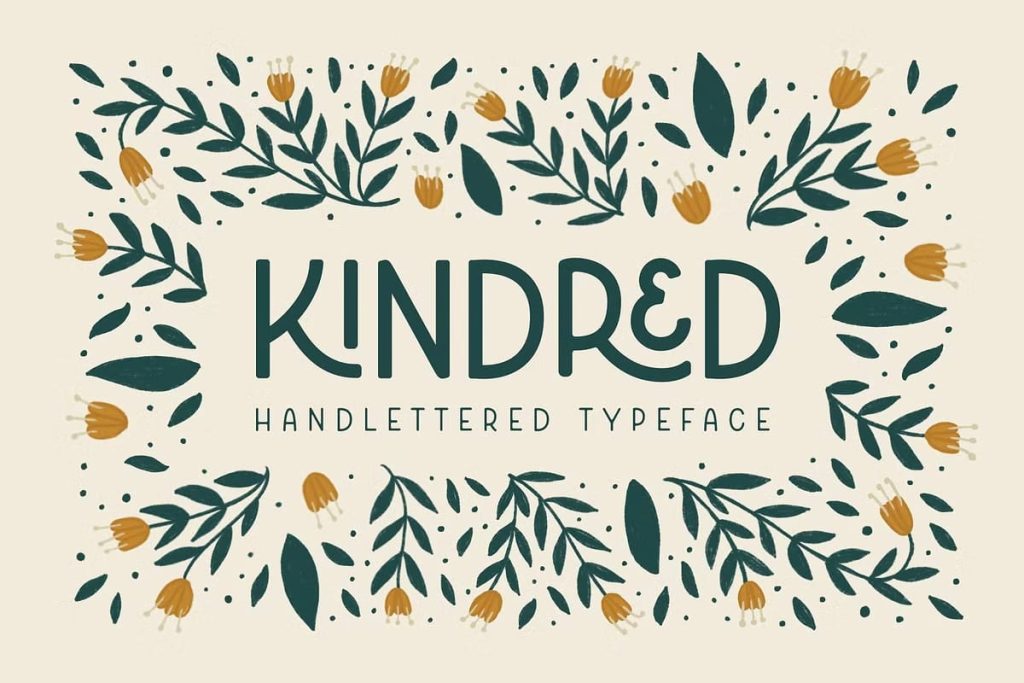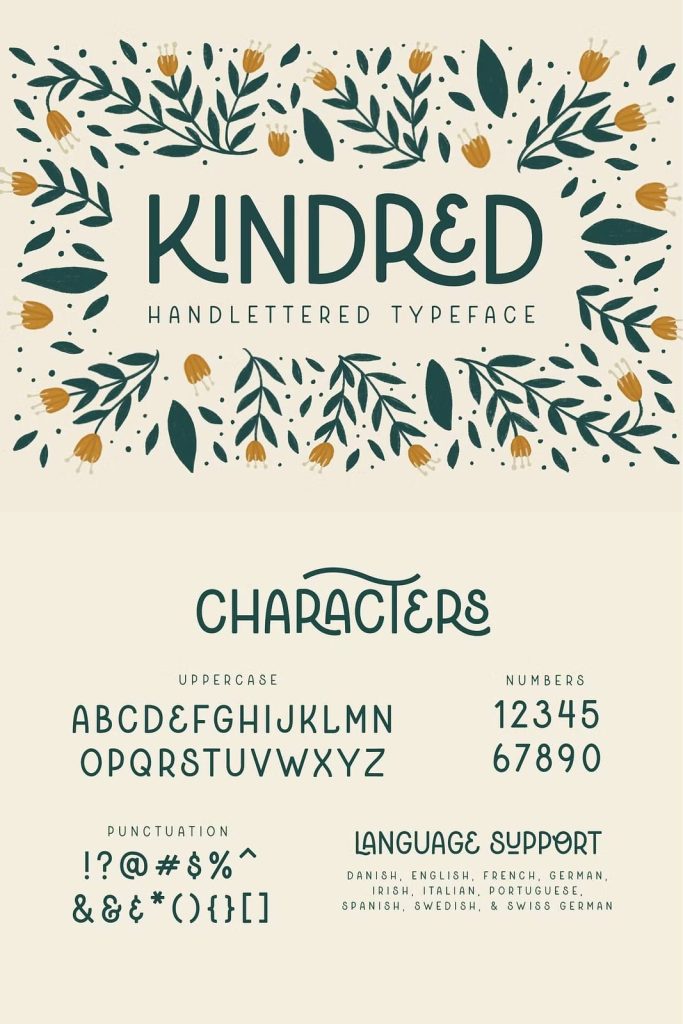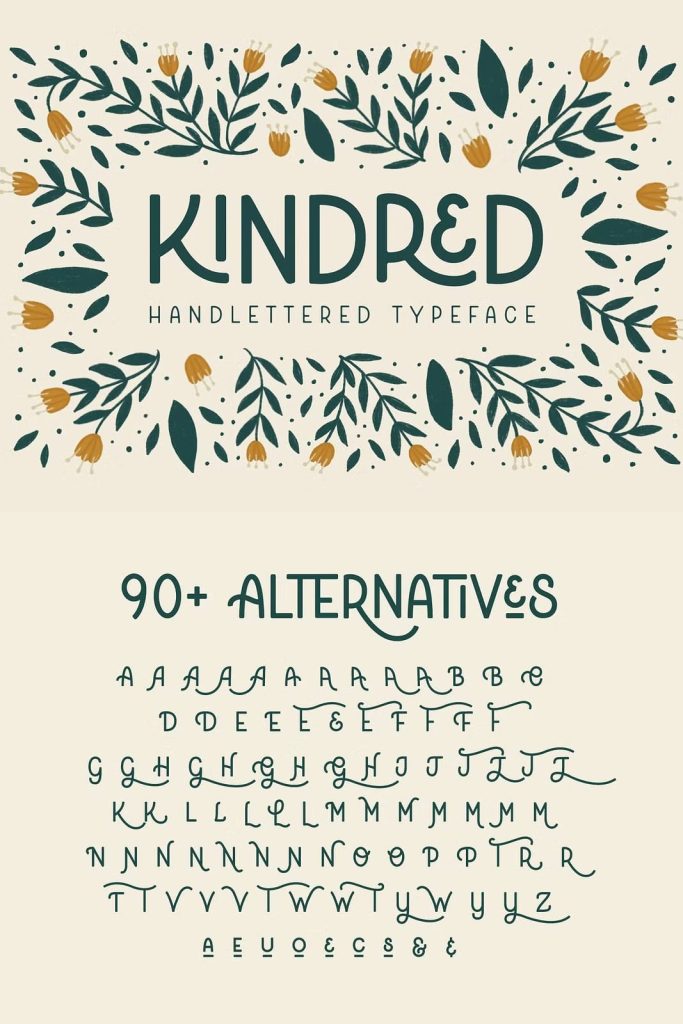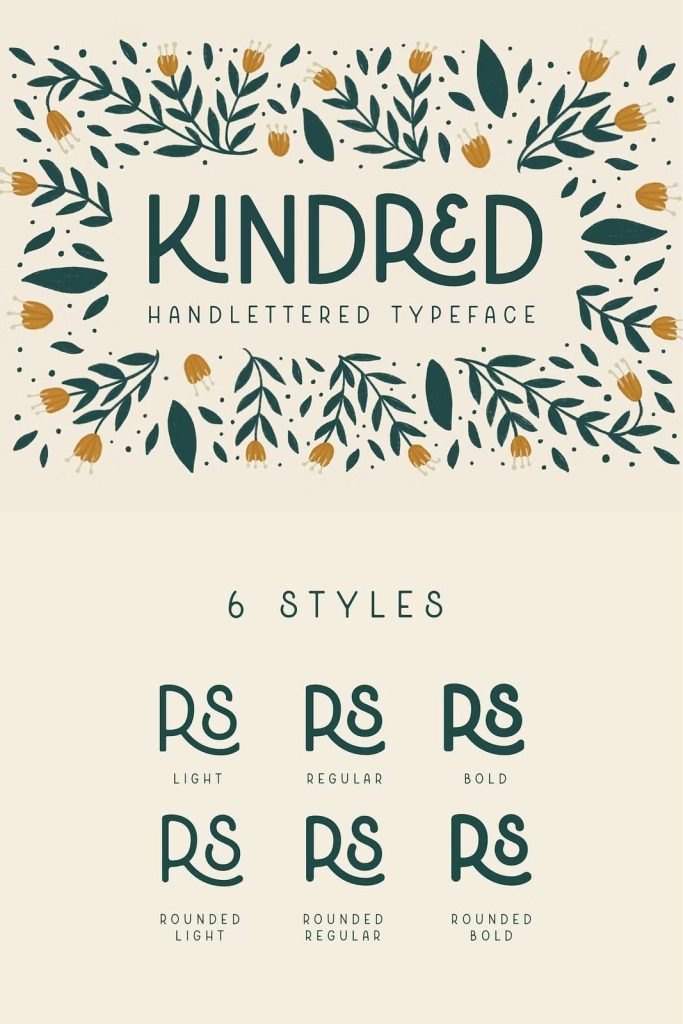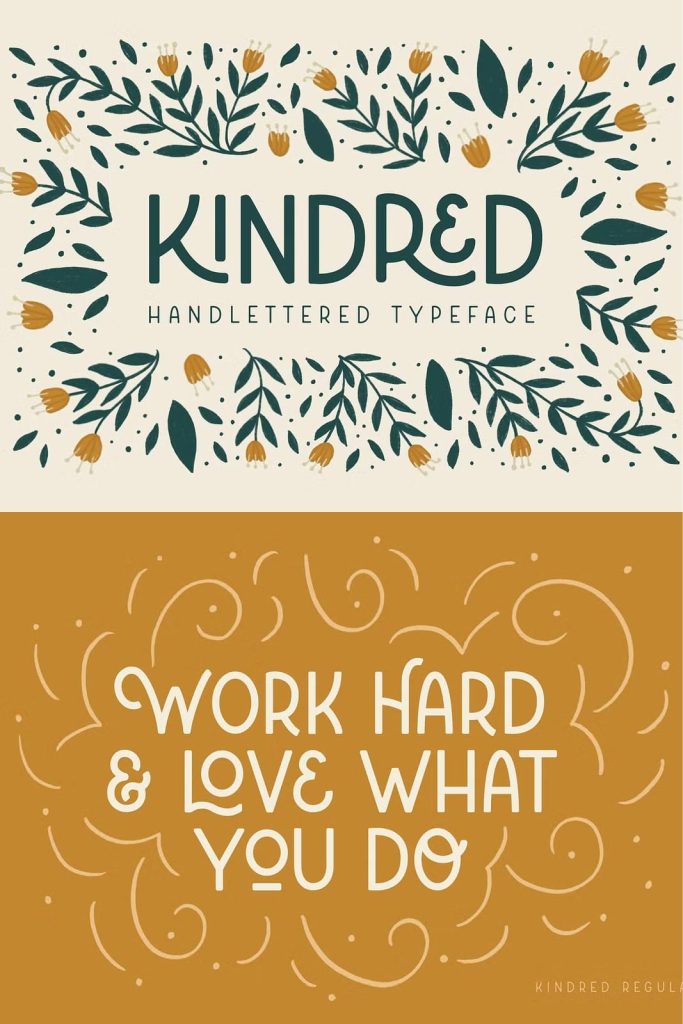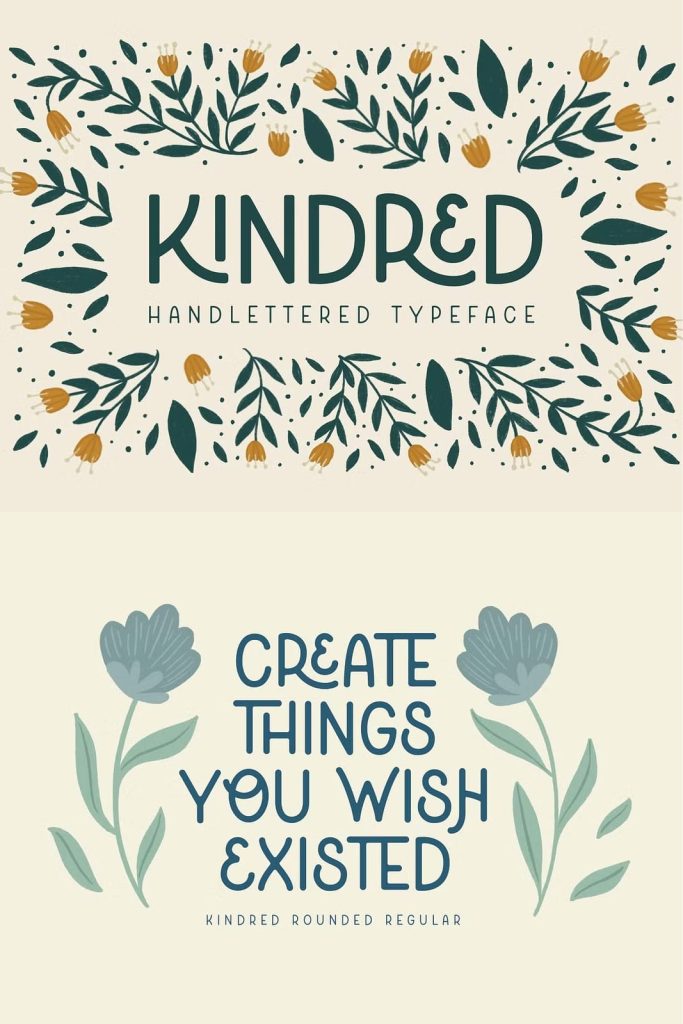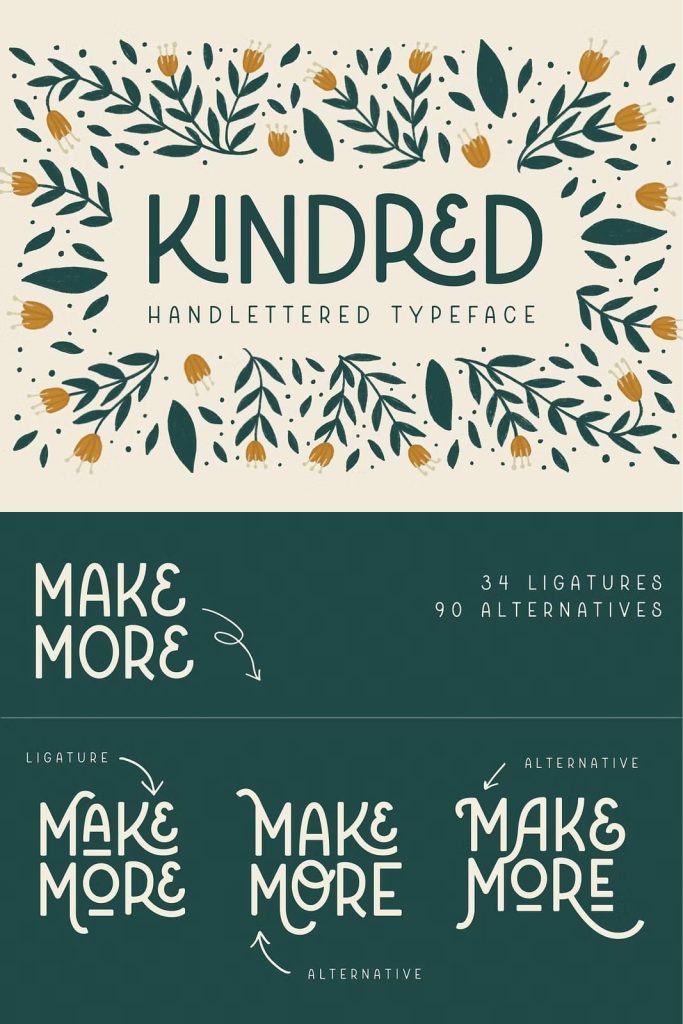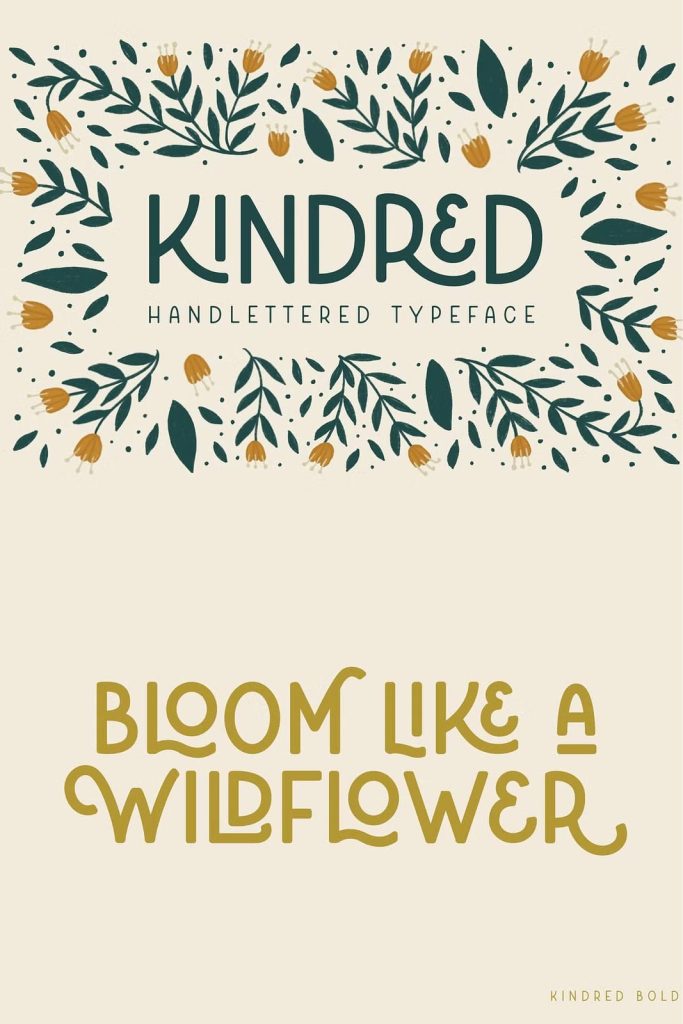
Kindred is an organic and hand-lettered sans typeface. It has a friendly and organic feel that works great for branding, social media, and marketing!
Kindred is inspired by hand lettering art – incorporating many letters that fit into each other and swashes that add a hand-drawn feel. The corners are slightly rounded to give it an organic and friendly feel. With so many alternatives and ligatures, each word can be customized to fit the needs of your project.